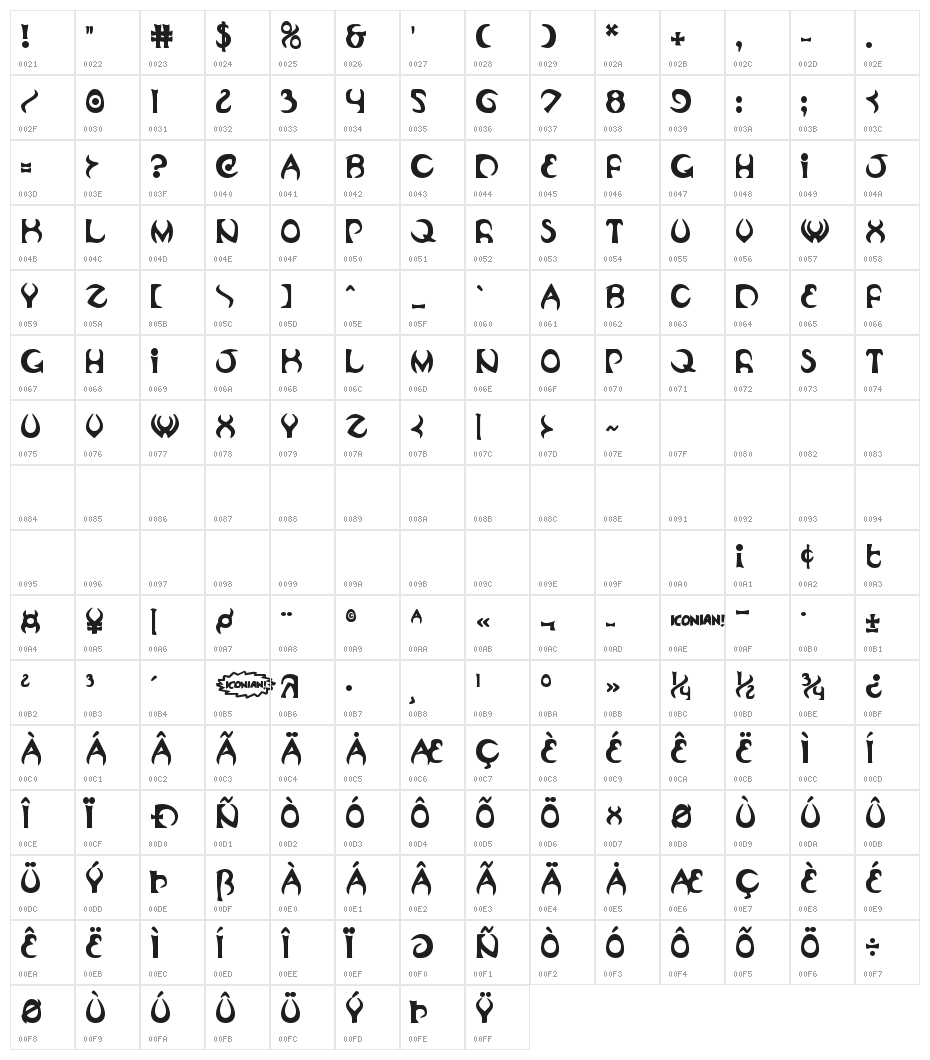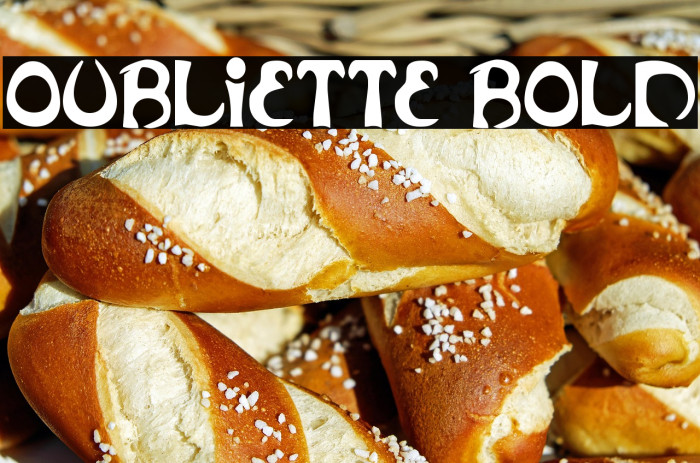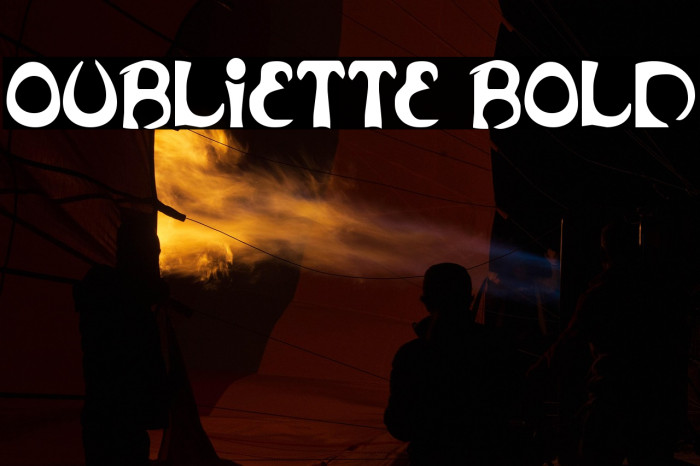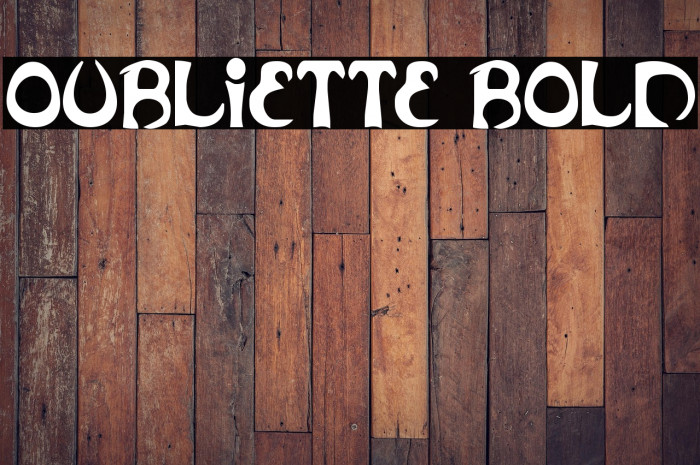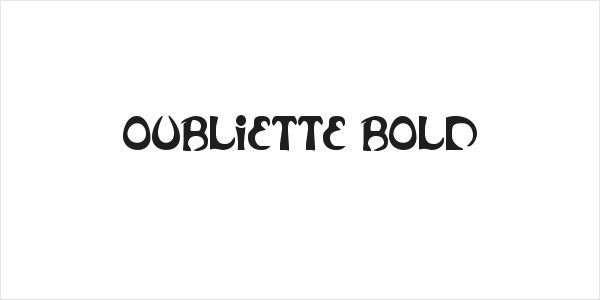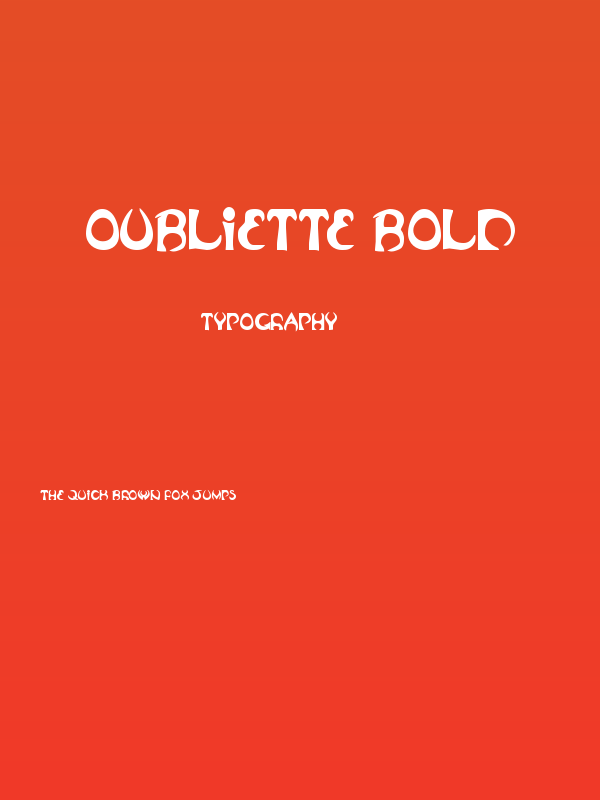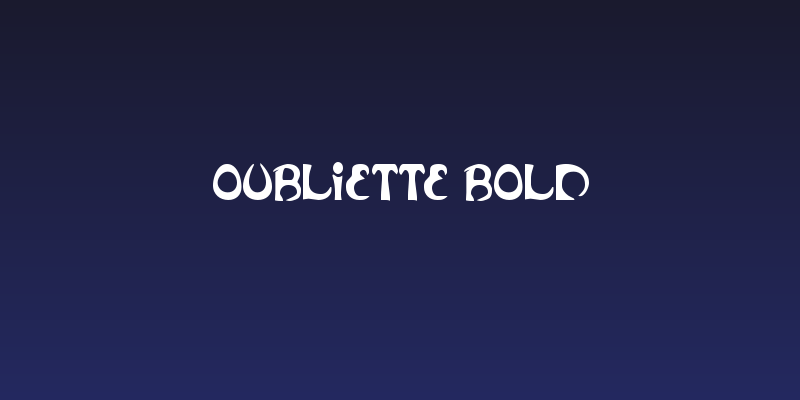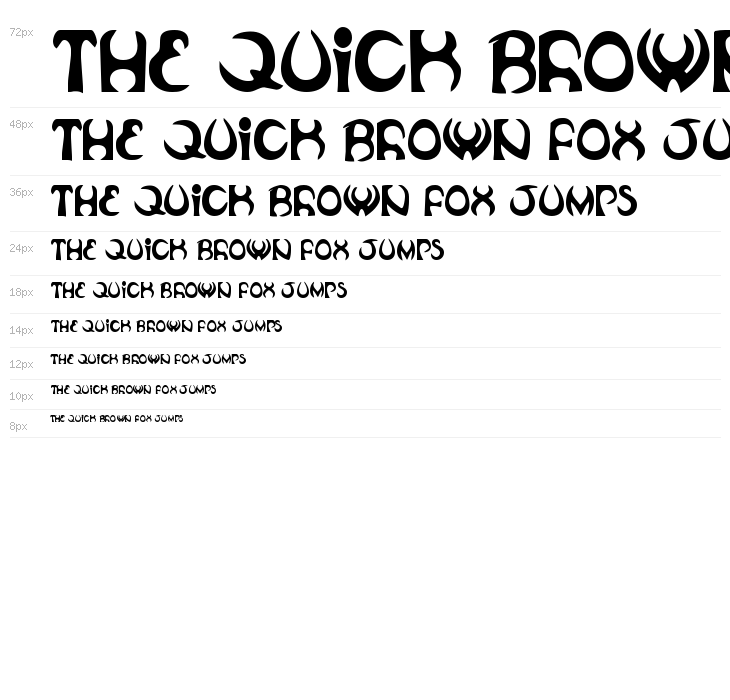
Oubliette Bold Font
Oubliette Bold Description
This font features a bold and dramatic style with a unique, artistic flair. The characters exhibit a high level of contrast with thick, bold strokes and sharp, angular edges. The design is reminiscent of ancient or mystical scripts, giving it a mysterious and captivating appearance. The uppercase and lowercase letters maintain a consistent style, with the uppercase letters being particularly striking and ornamental. The numerals and special characters follow the same bold and decorative theme, making them stand out. Overall, this font is perfect for projects that require a touch of fantasy or a dramatic visual impact.
| Proposed Projects | Ideal for fantasy book covers, game titles, posters, and branding that requires a dramatic and artistic touch. |